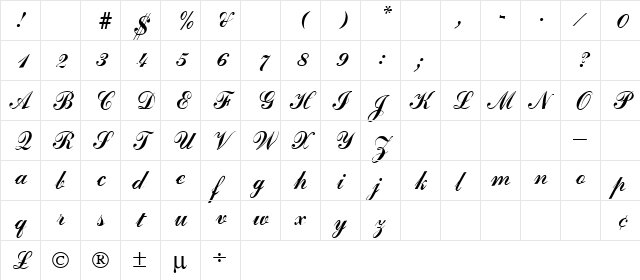
Grimpar Regular
Design Context for Grimpar Typeface
Grimpar takes a measured approach to typography — its balanced proportions and neutral character make it a reliable workhorse for both digital and print work.
Pro Tip: Use Grimpar in both headline and body roles to test its range before committing to a single application.